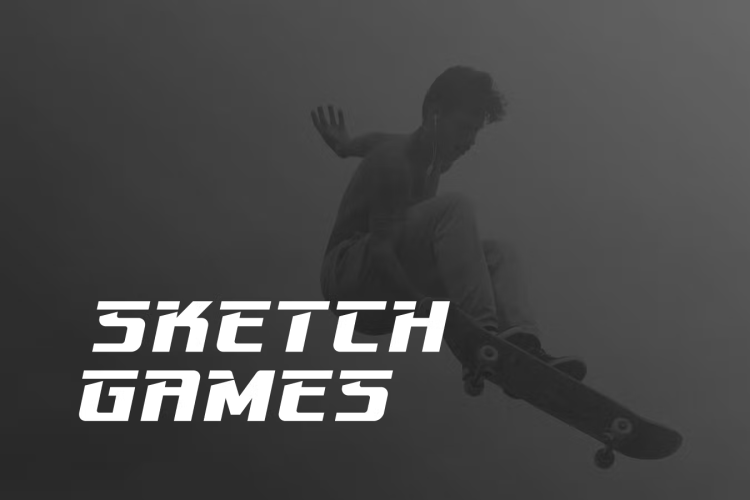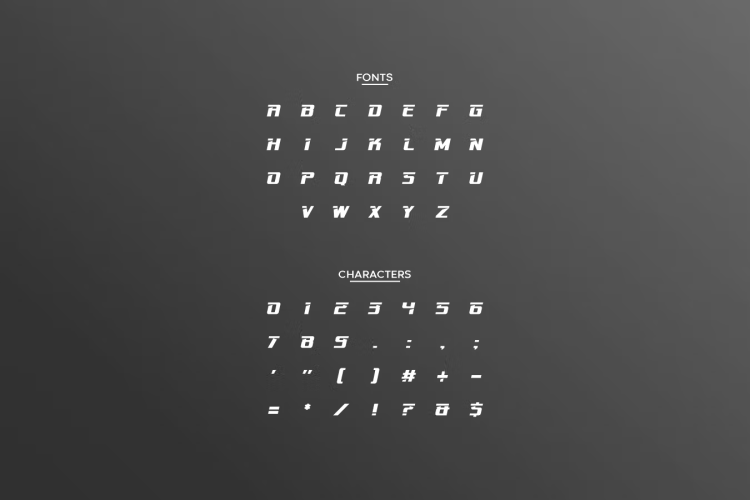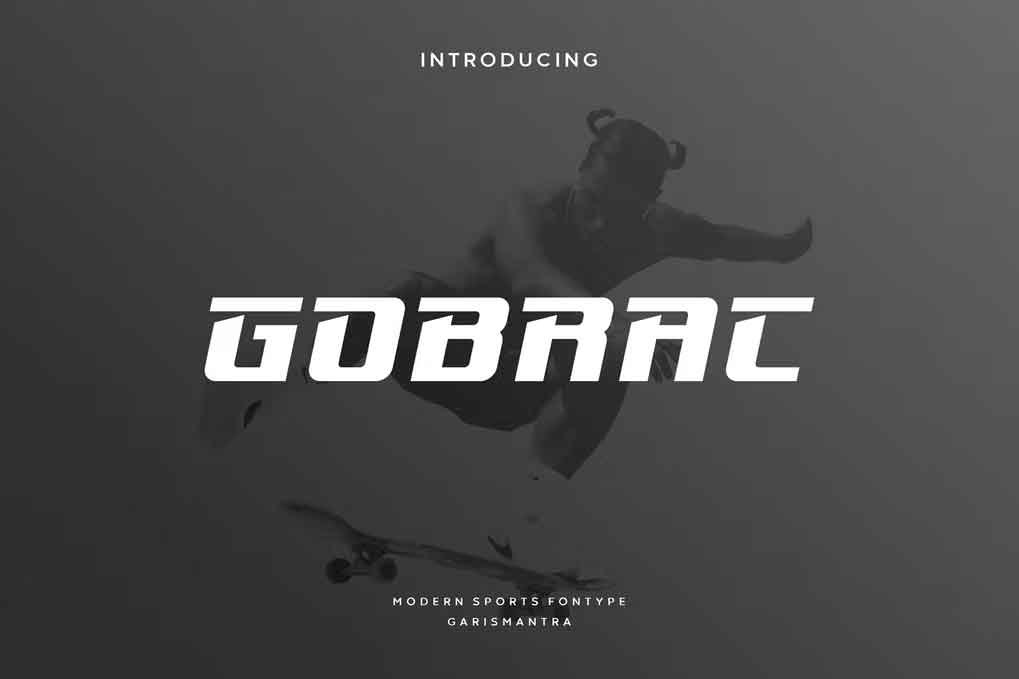
Gobrac Font
Gobrac an awesome sports font with wide italic fonts, modern cutouts and dynamic tilt. Ideal for fast car racing sports titles, running matches, cycling, automotive game…
Gobrac an awesome sports font with wide italic fonts, modern cutouts and dynamic tilt. Ideal for fast car racing sports titles, running matches, cycling, automotive game logos and other modern dynamic monograms or texts. Gobrac is better than some other sports fonts because it has a unique cutout, this creates a power and speed effect. Designed as a fast and dynamic font, but with a slightly different font design, take a look and grab it right away.
Where Gobrac Font works best
Event & seasonal design
Gobrac Font suits themed posters, holiday campaigns, festival identities and party invitations.
Game & entertainment titles
Decorative letterforms are a natural fit for game logos, movie-style titles and merch.
Packaging accents
Use Gobrac Font sparingly for product names or flavour labels that need personality.
What is Gobrac Font good for?